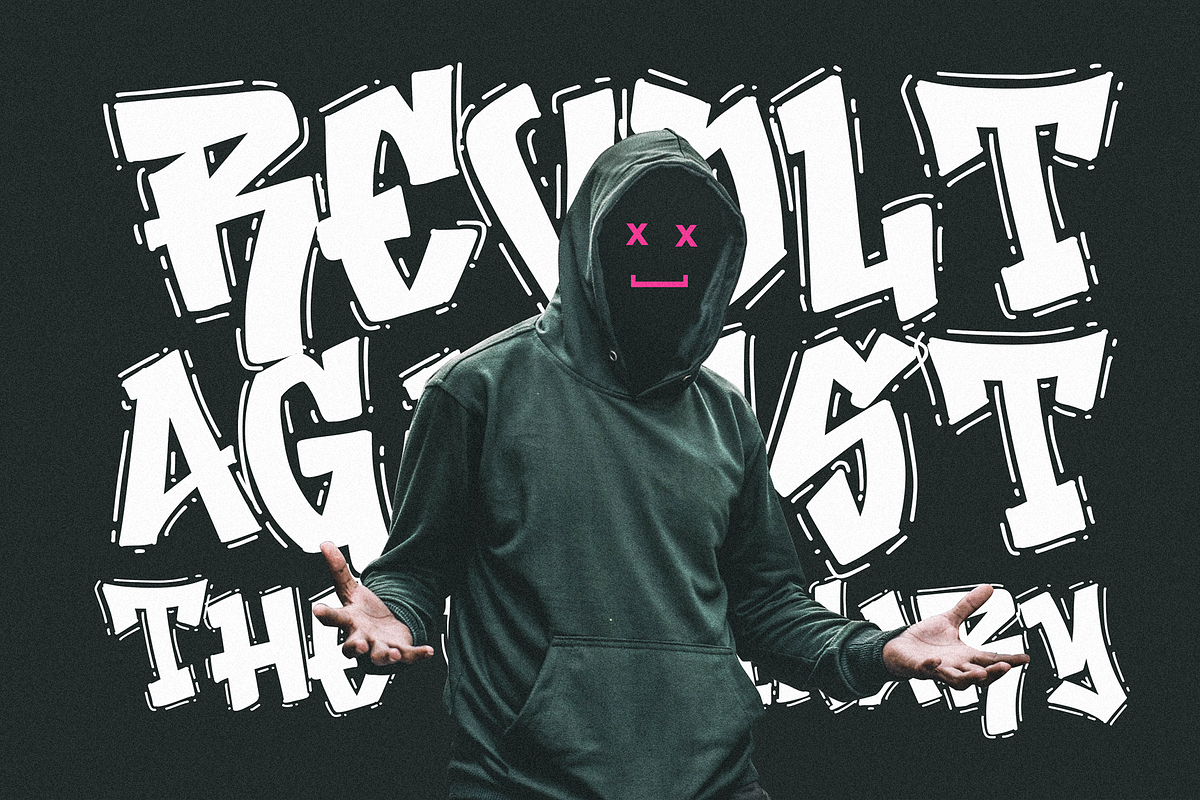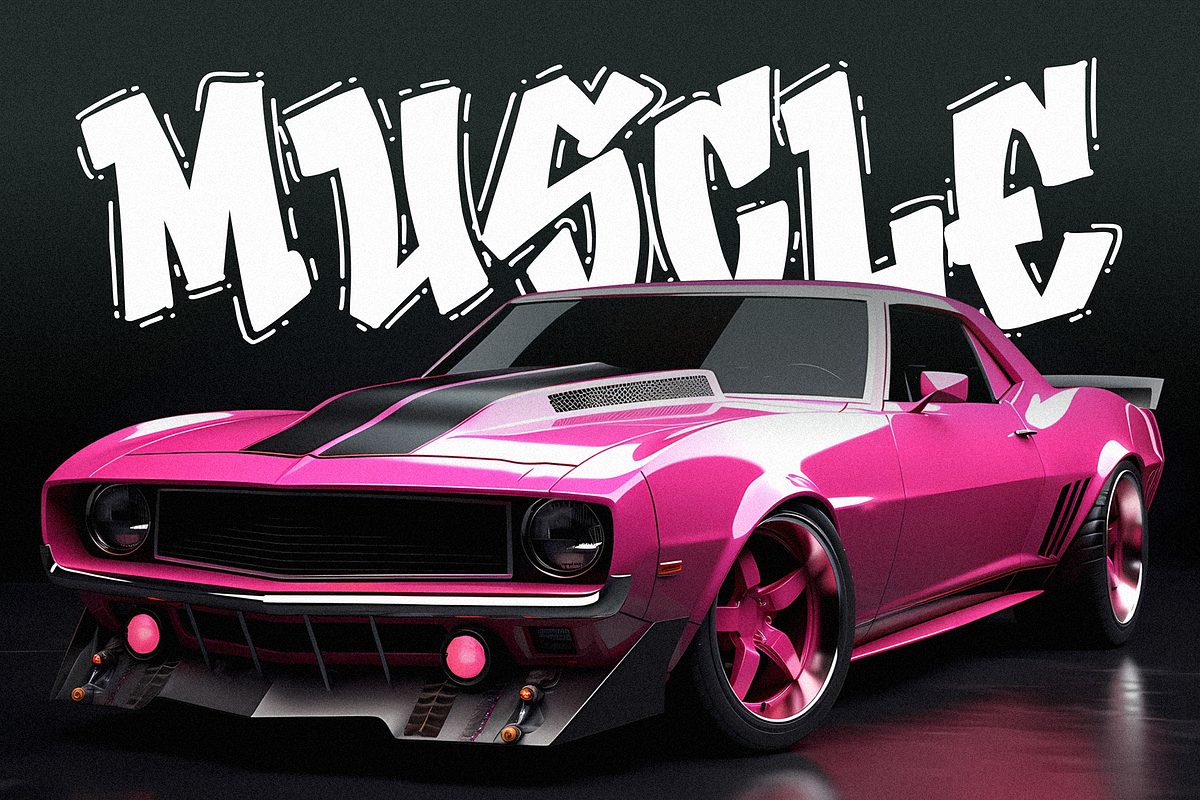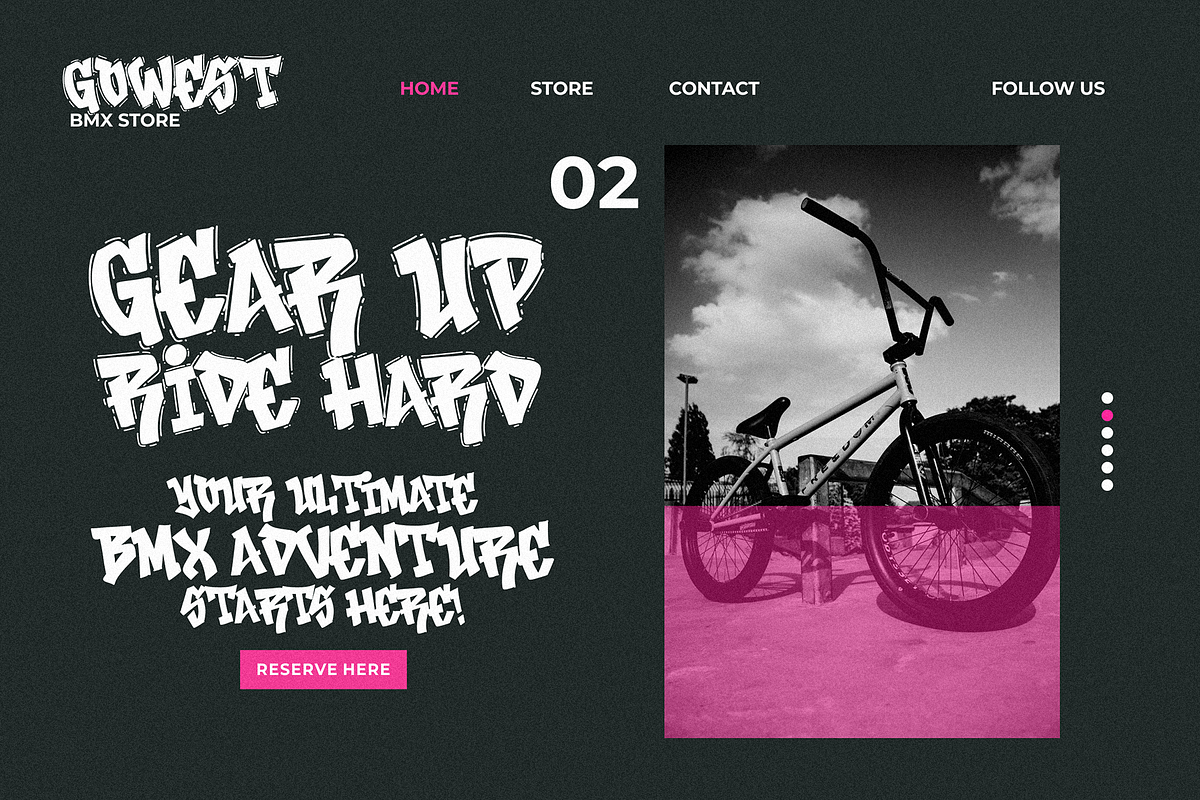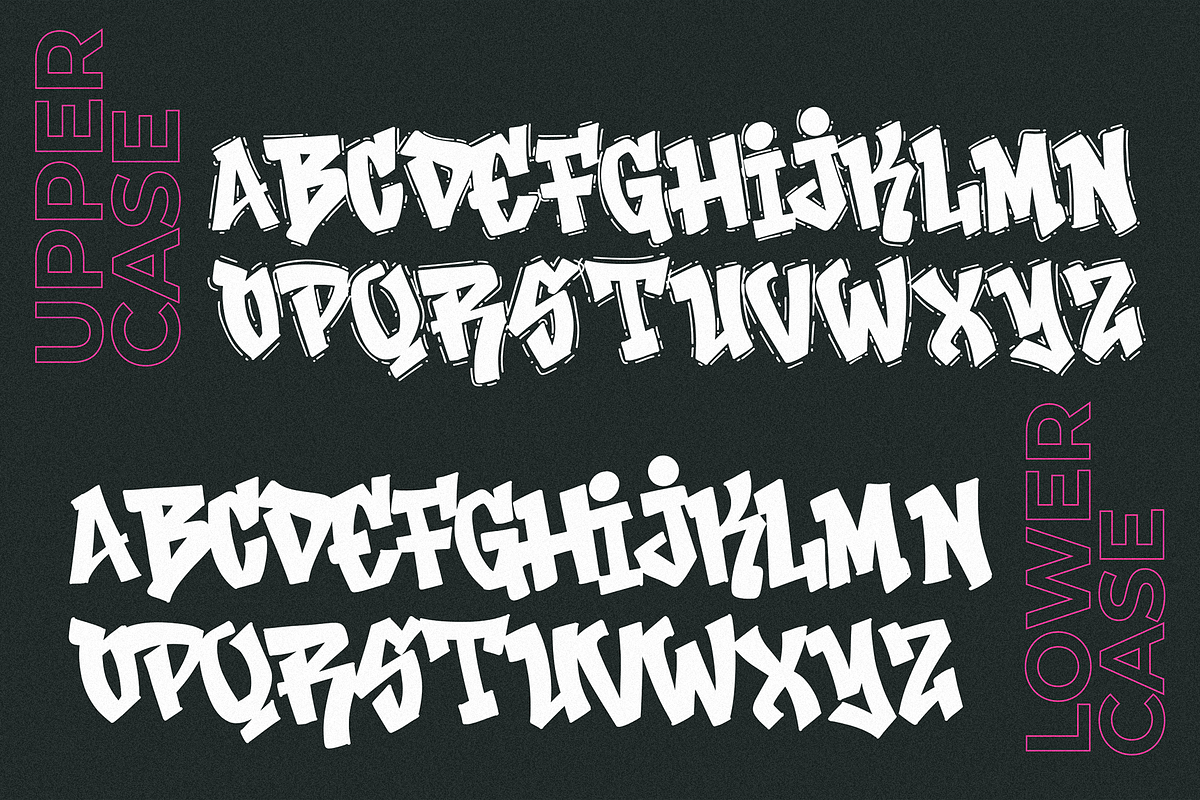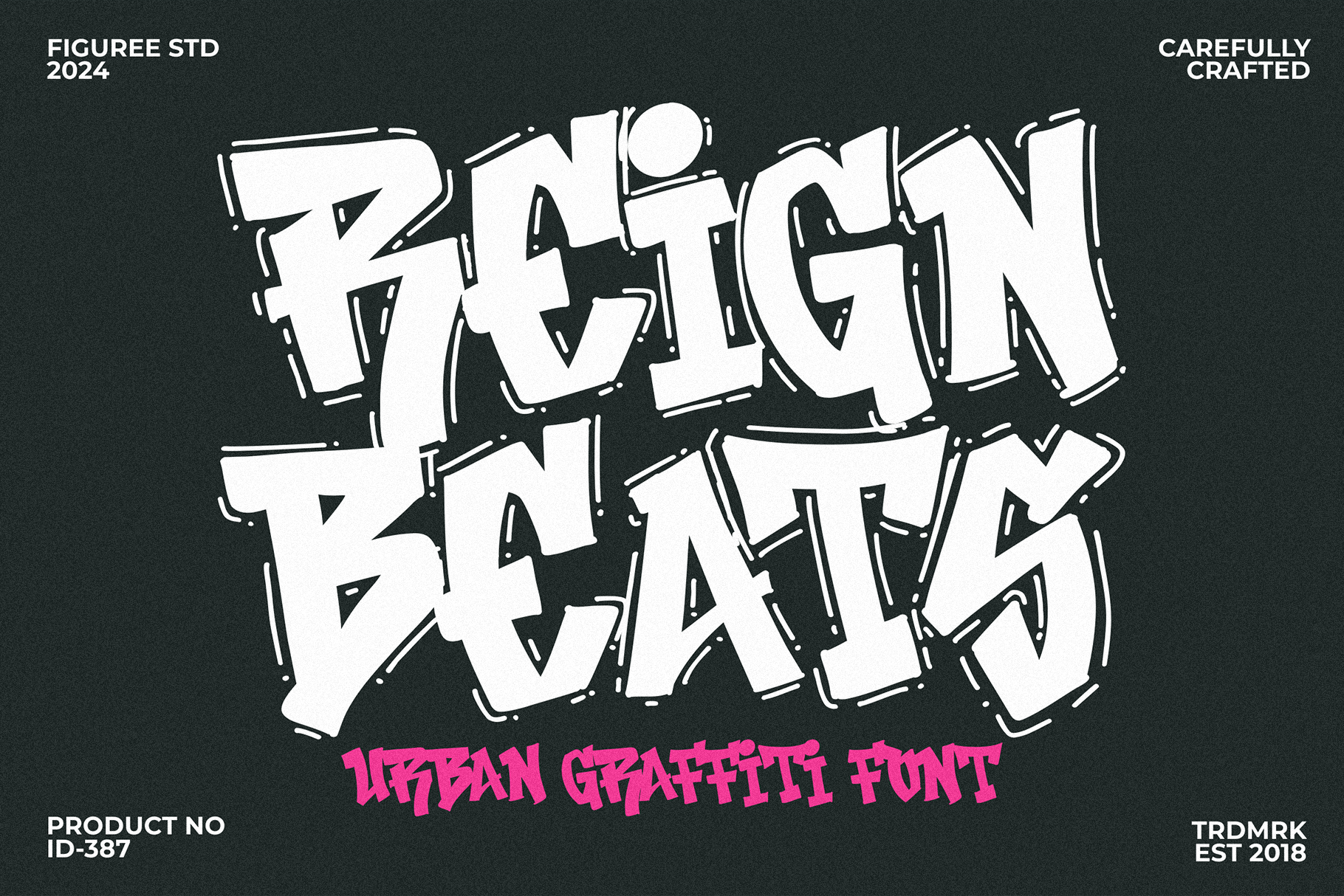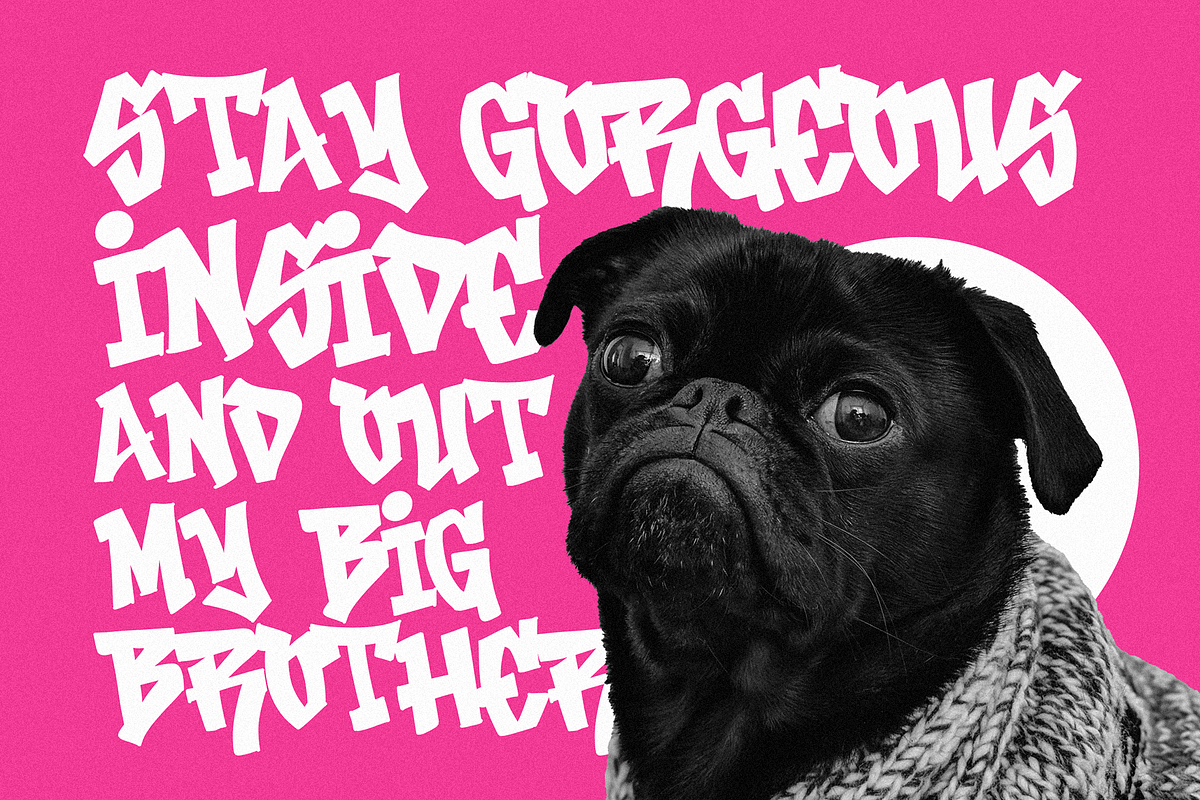
Reign Beats - Urban Graffiti Font
Ignite the streets with Reign Beats, the urban graffiti font that pulses with raw energy and rebellious style. More than just a font, Reign Beats is a visual anthem to the rhythm of the streets, where each letter becomes a beat in the pulsating symphony of graffiti culture.
Crafted with gritty precision, every stroke in Reign Beats echoes the untamed spirit of the urban landscape. Whether you're designing for streetwear, posters, or any project that demands an edgy aesthetic, this font ensures your words become a visual rebellion, leaving an indelible mark on the canvas of contemporary typography. Reign Beats isn't just a font; it's a statement, a powerful declaration that the streets have a language of their own. Elevate your designs with the dynamic and rebellious allure of Reign Beats – because true art knows no boundaries, especially in the gritty beats of the urban jungle!